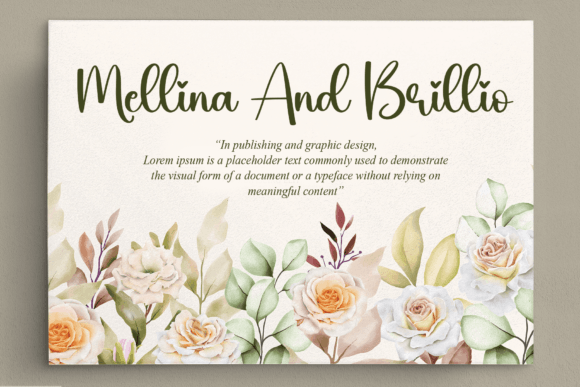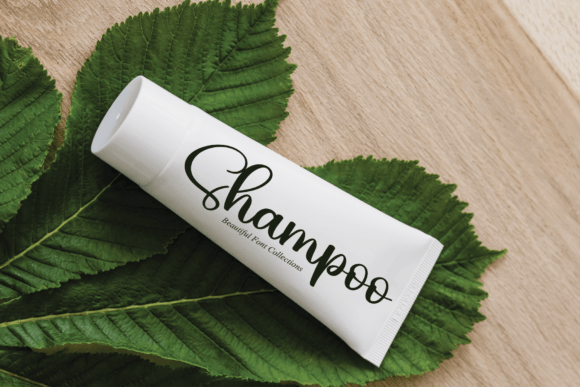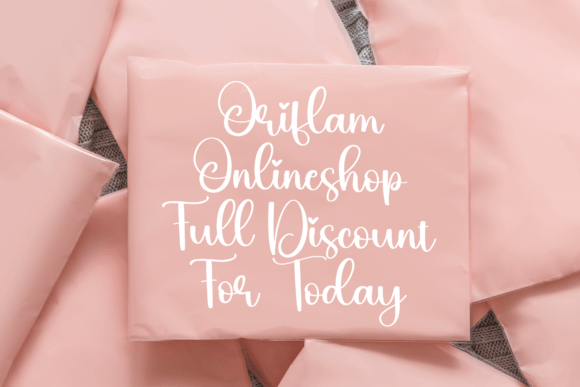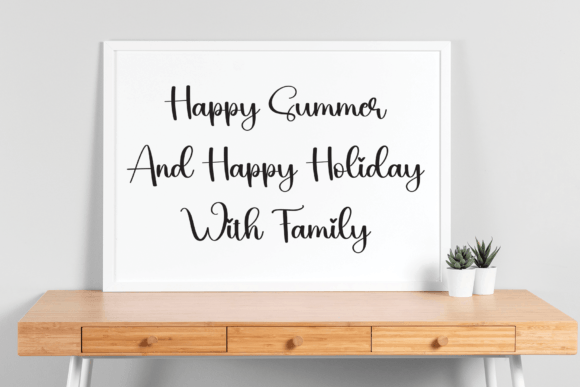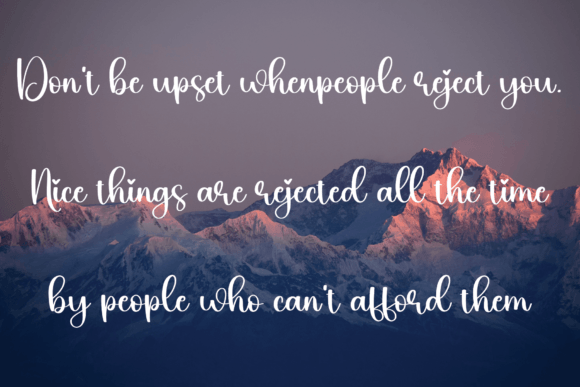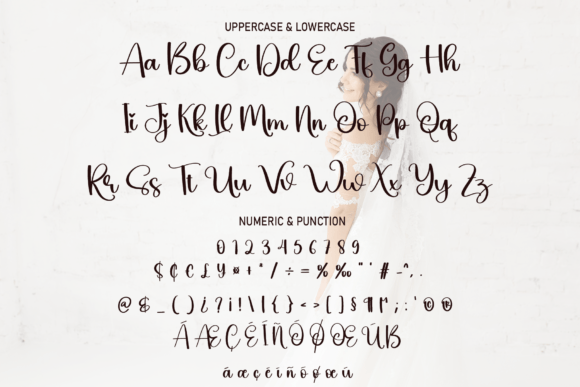
Bride Font: The Perfect Handwritten Style for Your Wedding and Design Projects
Are you a designer, crafter, or DIY enthusiast looking for a beautiful and elegant font to add a touch of sophistication to your wedding-related projects? Look no further than the Bride Font! This lovely handwritten font is perfect for creating stunning wall displays, wedding invitations, social media post logos, advertisements, product packaging, product designs, labels, photography, watermarks, invitations, stationery, and any other project that requires a personal and elegant touch.
What is Bride Font?
Bride Font is a unique and stylish handwritten font that is designed to resemble the elegant handwriting of a bride. Its flowing lines, delicate curves, and romantic flair make it the perfect choice for any wedding-related project. Whether you’re a designer looking for a font to use in your clients’ wedding stationery or a crafter creating DIY wedding decorations, Bride Font is sure to impress.
Features of Bride Font
- Handwritten style: Bride Font has a beautiful, handwritten style that adds a personal touch to any project.
- Elegant and sophisticated: The font’s flowing lines and delicate curves give it an elegant and sophisticated look that’s perfect for wedding-related projects.
- Versatile: Bride Font can be used for a wide range of projects, from wall displays and wedding invitations to social media post logos and product packaging.
- Easy to read: Despite its elegant style, Bride Font is easy to read, making it perfect for use in body text as well as headings.
Uses for Bride Font
Bride Font is a versatile font that can be used for a wide range of wedding-related projects, including:
- Wall displays: Create stunning wall displays with Bride Font, perfect for wedding receptions, baby showers, and other celebrations.
- Wedding invitations: Add a touch of elegance to your wedding invitations with Bride Font, available in digital and print formats.
- Social media post logos: Use Bride Font to create beautiful social media post logos that will make your wedding-related posts stand out.
- Advertisements: Add a touch of sophistication to your wedding-related advertisements with Bride Font.
- Product packaging: Use Bride Font to create beautiful product packaging for wedding-related products, such as wedding favors, decorations, and gifts.
- Product designs: Add a touch of elegance to your product designs with Bride Font, perfect for creating beautiful wedding-related products.
- Labels: Use Bride Font to create beautiful labels for wedding-related products, such as wedding favors, decorations, and gifts.
- Photography: Add a touch of elegance to your wedding photography with Bride Font, perfect for use in watermarks, captions, and other text overlays.
- Invitations: Create beautiful invitations for weddings, baby showers, and other celebrations with Bride Font.
- Stationery: Use Bride Font to create beautiful stationery, such as notecards, greeting cards, and letterhead.
Why Choose Bride Font?
There are many reasons why Bride Font is the perfect choice for your wedding-related projects. Here are just a few:
- Unique and stylish: Bride Font is a unique and stylish font that will add a touch of elegance to any project.
- High-quality: Bride Font is a high-quality font that is designed to produce beautiful results.